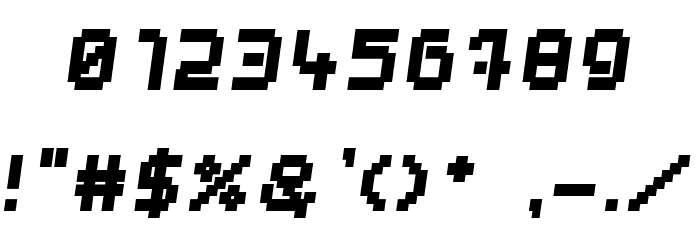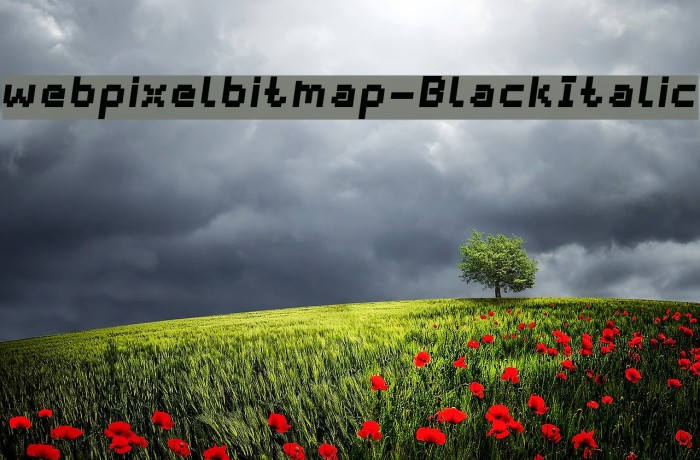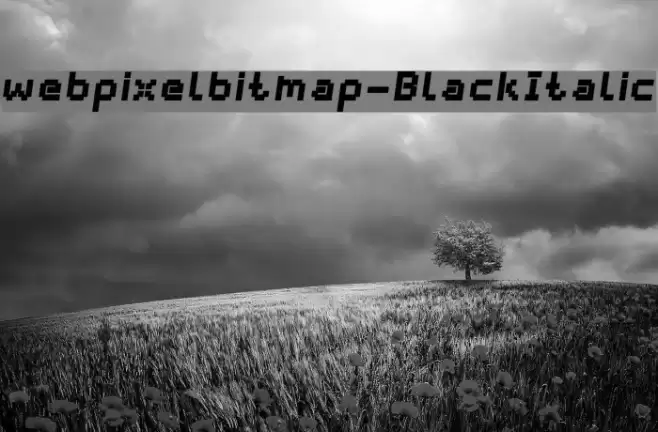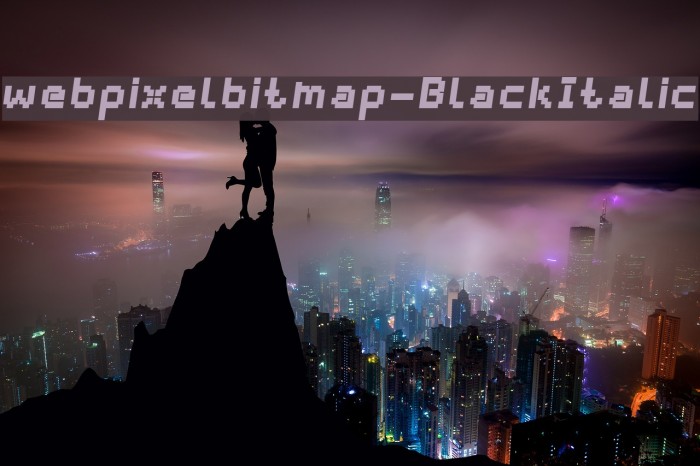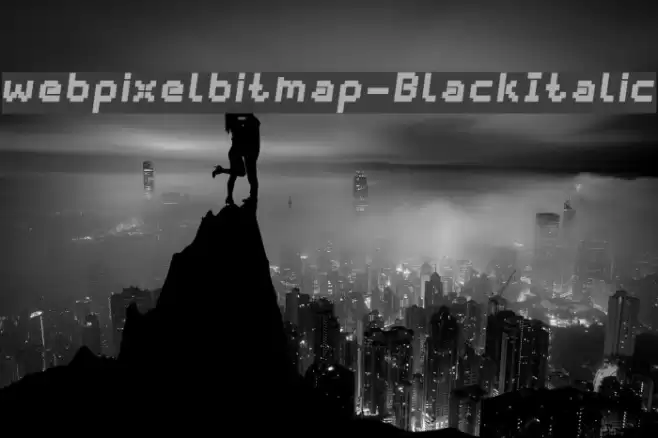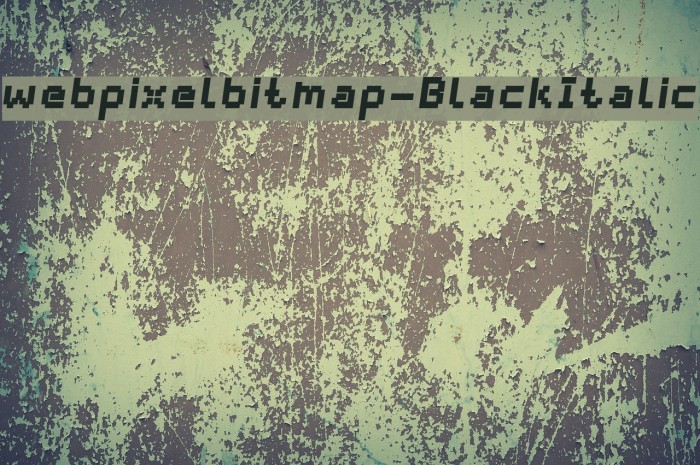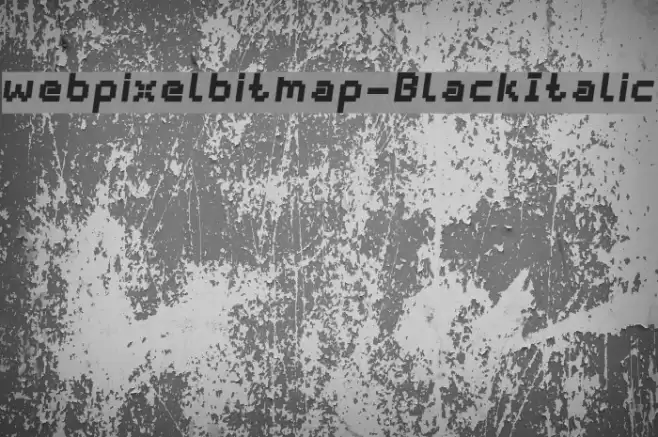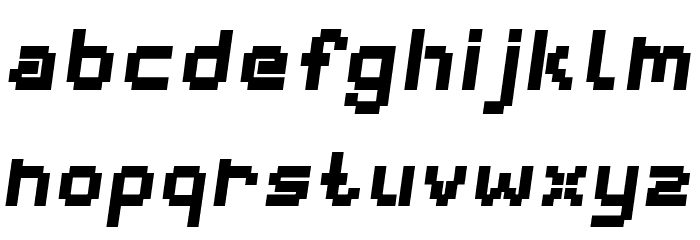
webpixelbitmap-BlackItalic Font
webpixelbitmap-BlackItalic Description
This font features a distinct pixelated style with a bold and italicized appearance, reminiscent of retro digital displays. Each character is constructed with blocky, square edges, giving it a unique, tech-inspired look. The italic slant adds a dynamic feel, while the consistent pixel size maintains a uniform appearance across all characters. The uppercase and lowercase letters, numbers, and special characters are all designed with the same pixelated aesthetic, ensuring a cohesive look. This font is ideal for projects that aim to evoke a sense of nostalgia or a digital, futuristic theme.
A bold, italic, pixelated font with a retro digital style from Uncategorized fonts.
- Proposed Projects: Perfect for video game design, retro-themed posters, digital art, and tech-related branding.
- Overall Style: Retro, Digital
- Use Case: Headlines, Logos, Digital displays